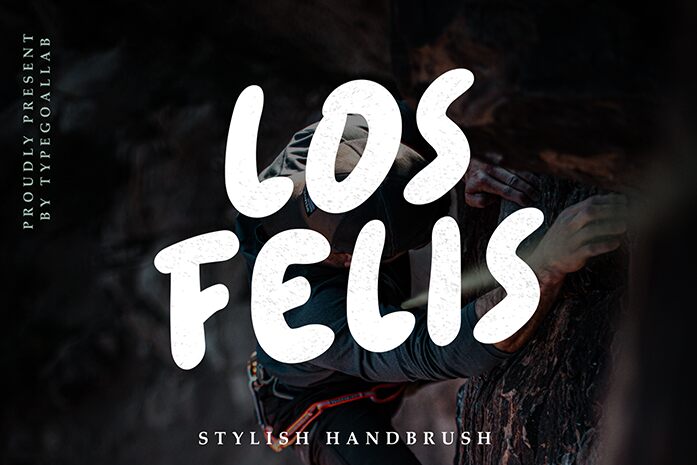
Los Felis, designed by Typegoals Labs, is a remarkable handwritten font that combines elegance with a touch of spontaneity. Its smooth handbrush style exudes creativity and uniqueness, making it an ideal choice for various projects.
With its extra-bold weight and semi-condensed width, Los Felis commands attention and adds a bold statement to any design. Perfect for branding materials, logos, headlines, or social media graphics, this font brings an effortlessly chic vibe to your creations.
Let Los Felis elevate your designs and captivate your audience with its unrivaled charm.